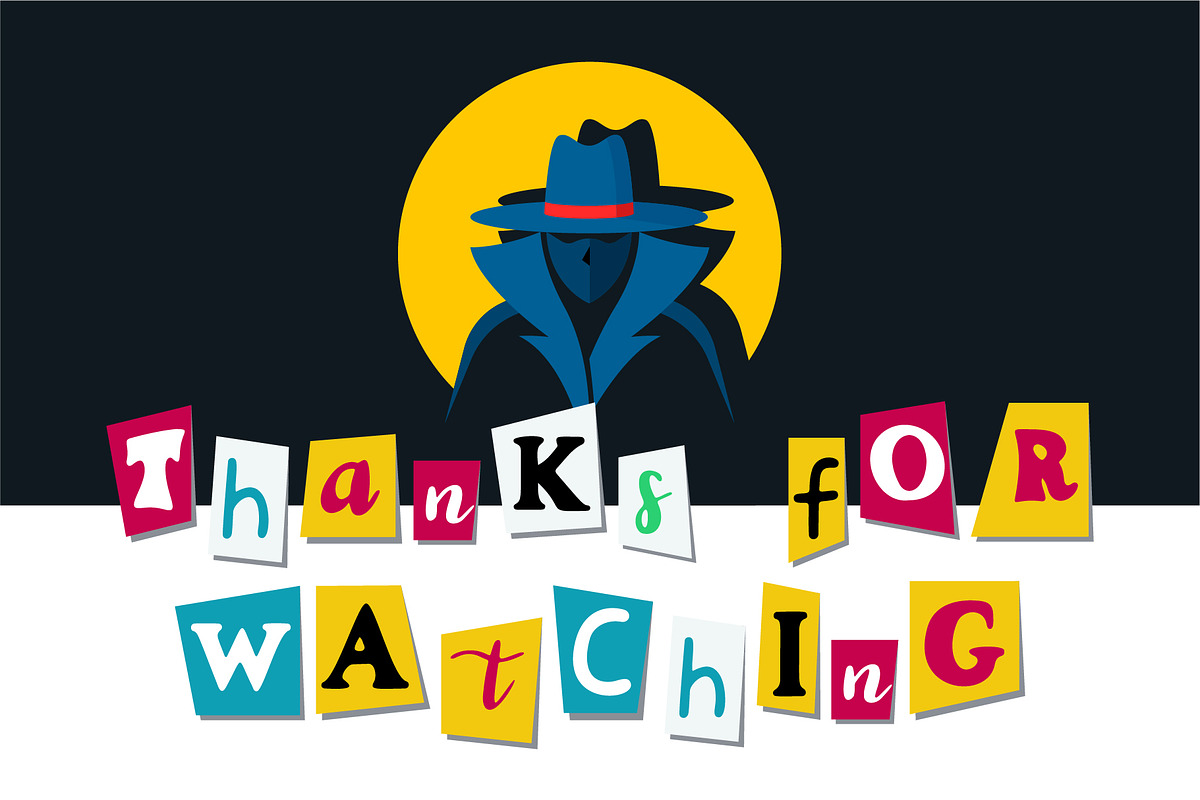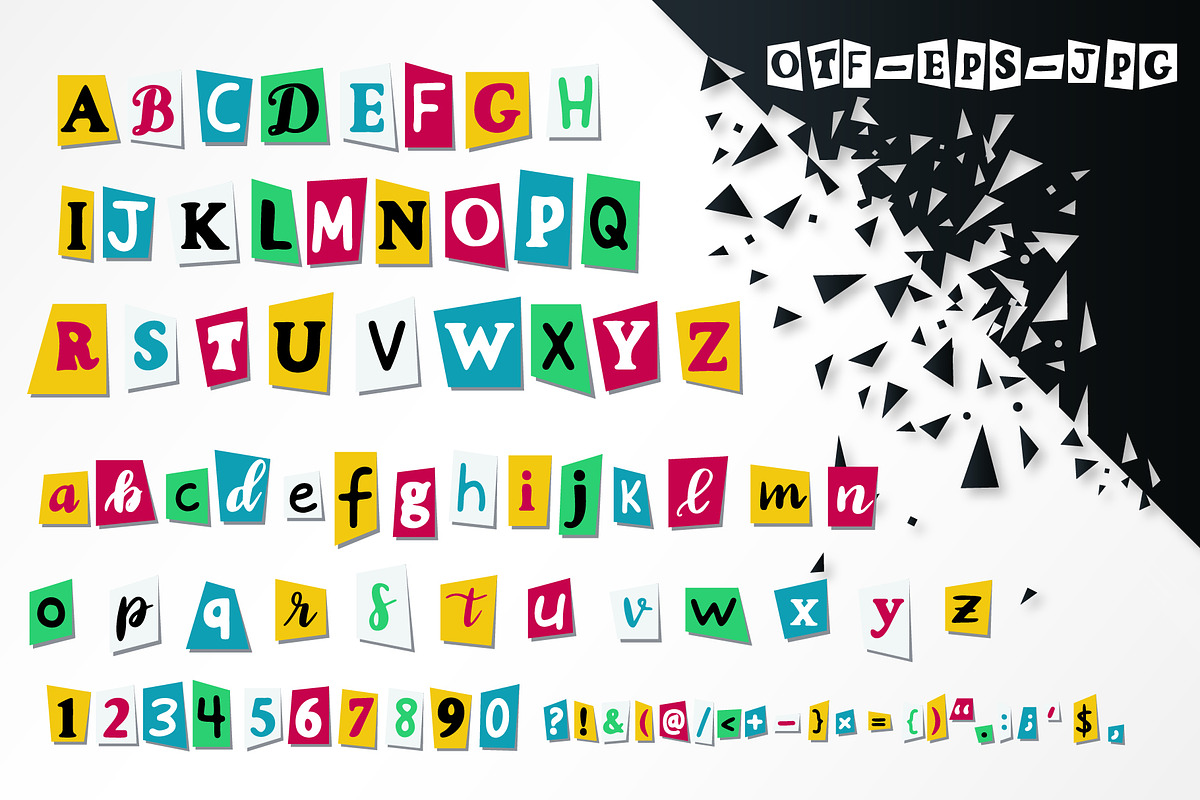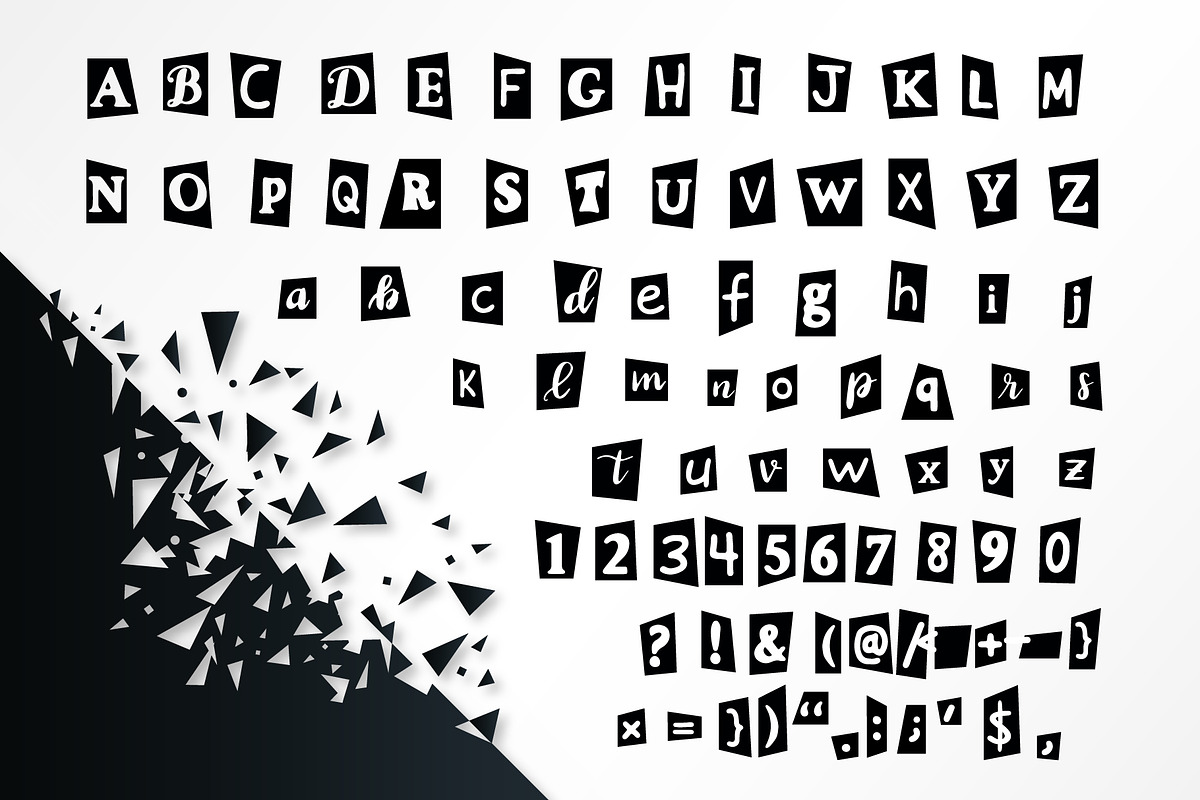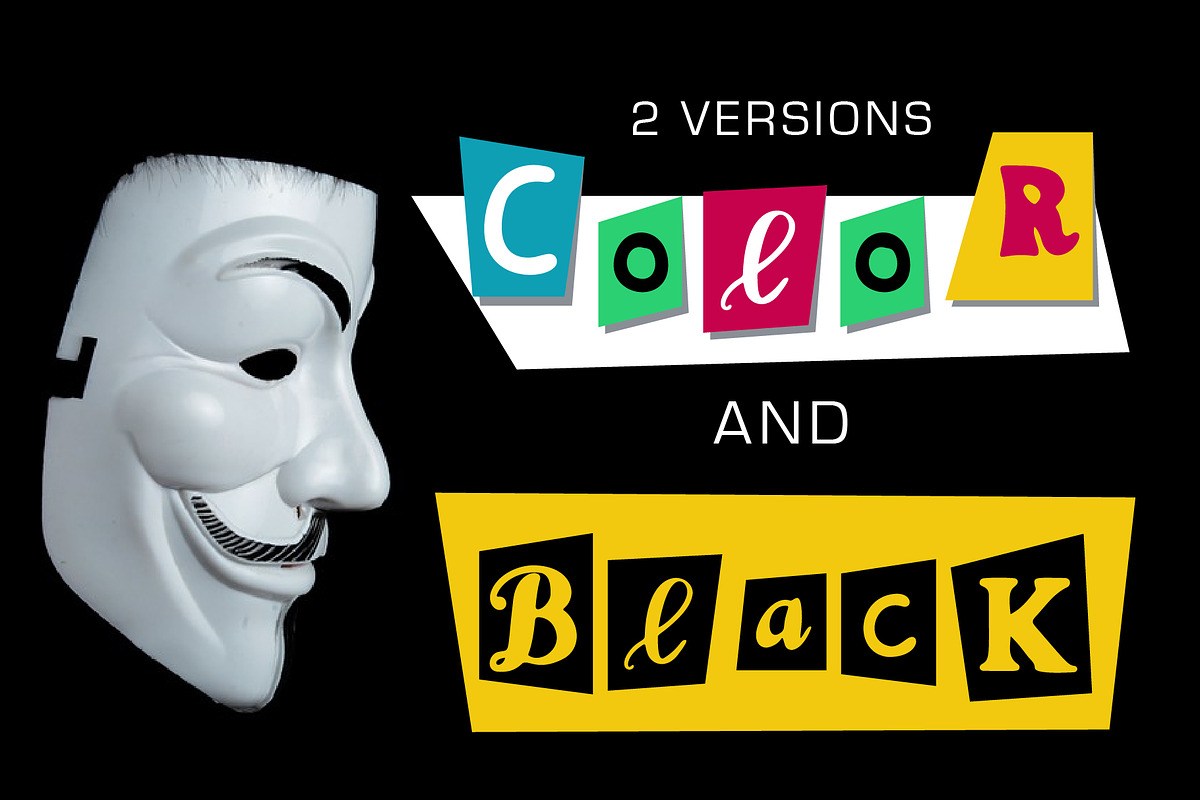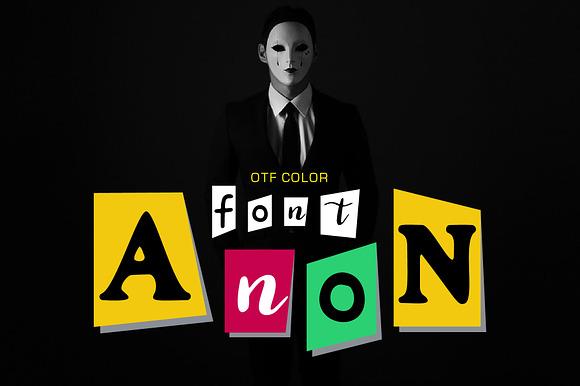
Anon - OTF color font
OTF color font “Anon” cut paper from newspaper or magazines.
Alphabet with capital letters, numbers, punctuation mark. Font to create text from not named or identified author, cut newspaper and magazine symbols design.
Anon - OTF color font by Kseniia Kuznetsova fits naturally into Branding, posters, packaging, typography.